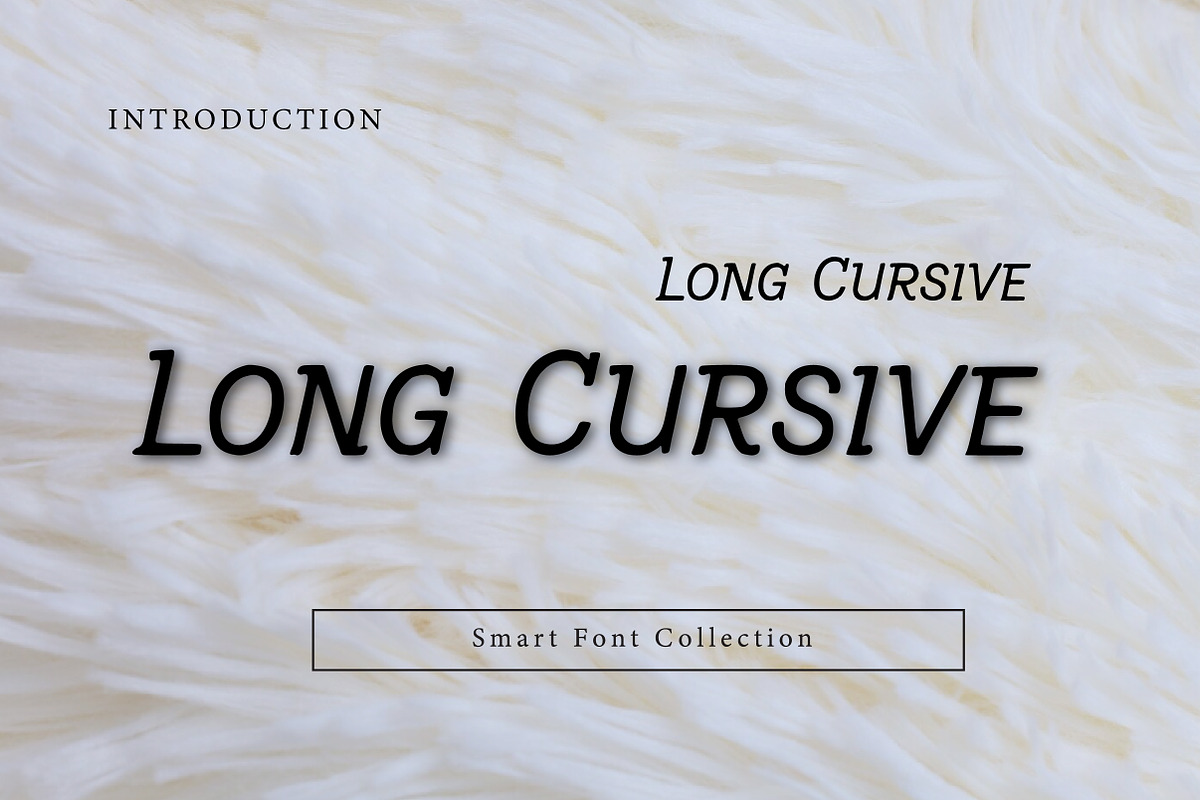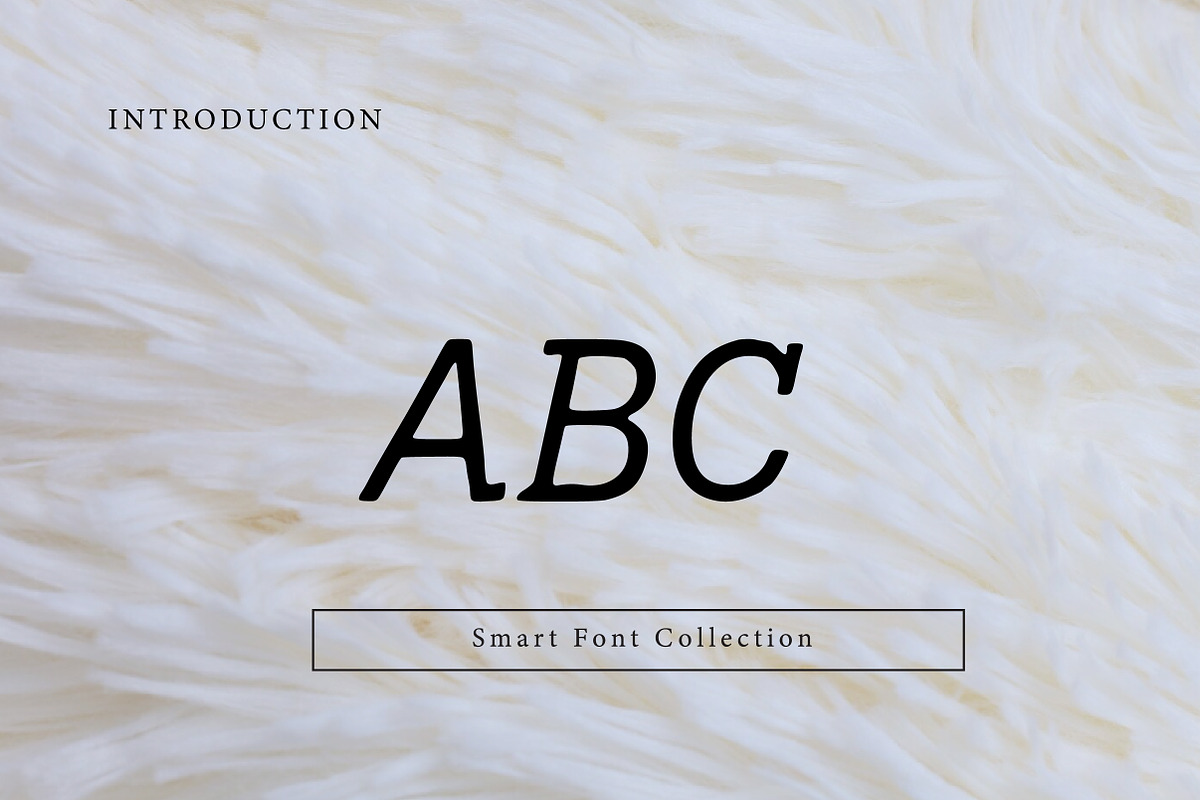
Long Cursive
Long Cursive is an elegant and stylish italic cursive font designed with long flowing letterforms and a smooth handwritten feel. With clean strokes, graceful curves, and a classic calligraphy-inspired look, this font is perfect for quotes, invitations, branding, logos, posters, editorial layouts, and sophisticated typography projects. Long Cursive brings a refined and romantic personality to your designs, making it ideal for premium lettering, wedding projects, and modern elegant visuals.